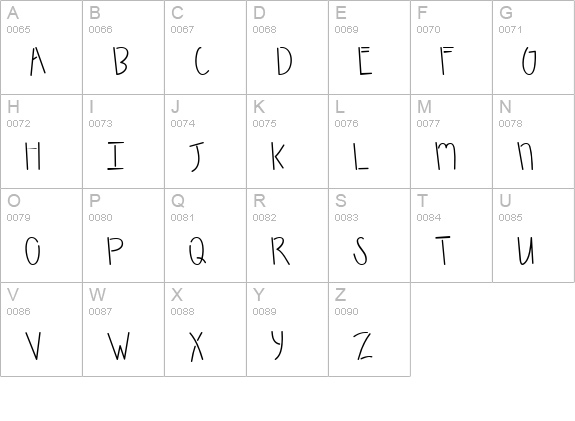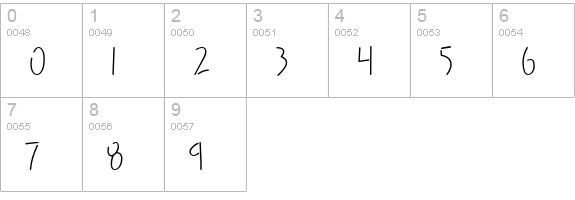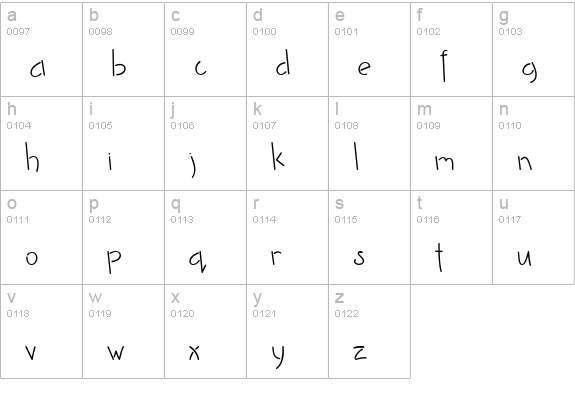
CK Nifty Font Details
The CK Nifty font is a versatile and modern typeface that exudes a sense of creativity and style. With its clean lines and contemporary design, this font is perfect for a wide range of design projects, from logos to branding materials to web design. The CK Nifty font offers a sleek and sophisticated look that will elevate any project it is used for. What's even better is that the CK Nifty font is completely free to download at FontsMarket.com. This means that you can access this high-quality font without having to spend a dime. Whether you're a professional designer or just looking to add some flair to your personal projects, the CK Nifty font is a fantastic choice. Don't miss out on this amazing opportunity to enhance your designs with this stylish and free font option.